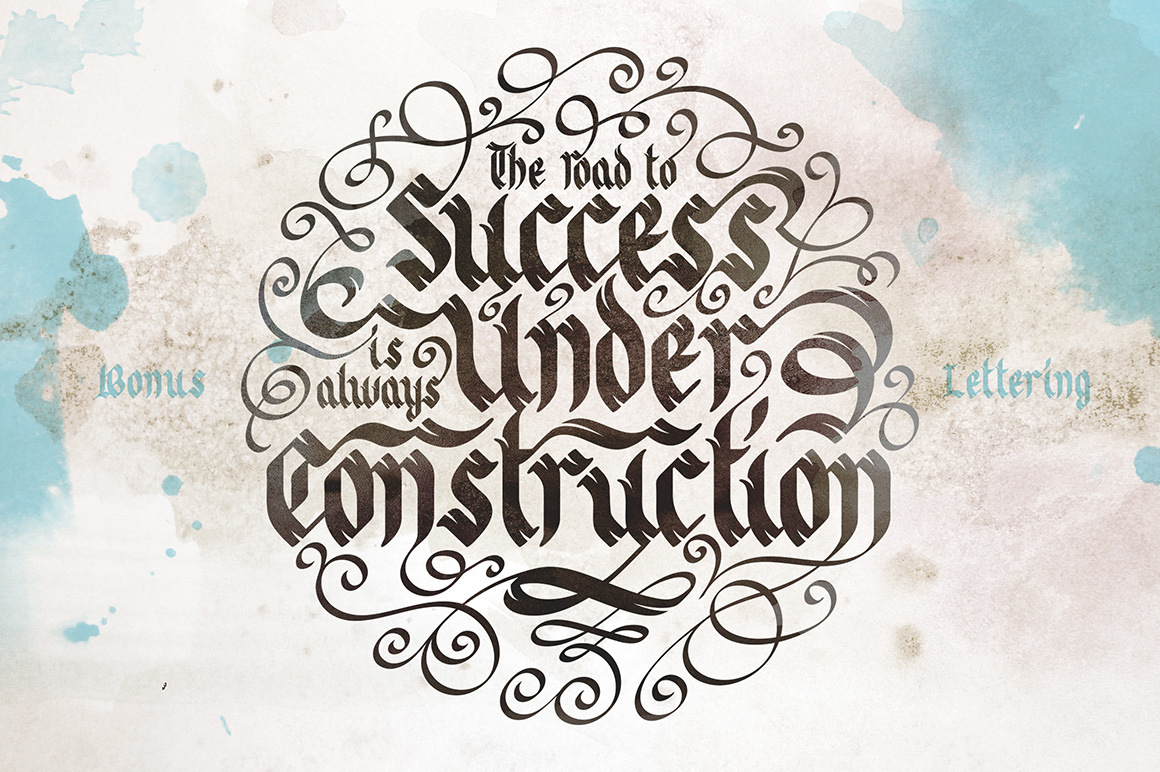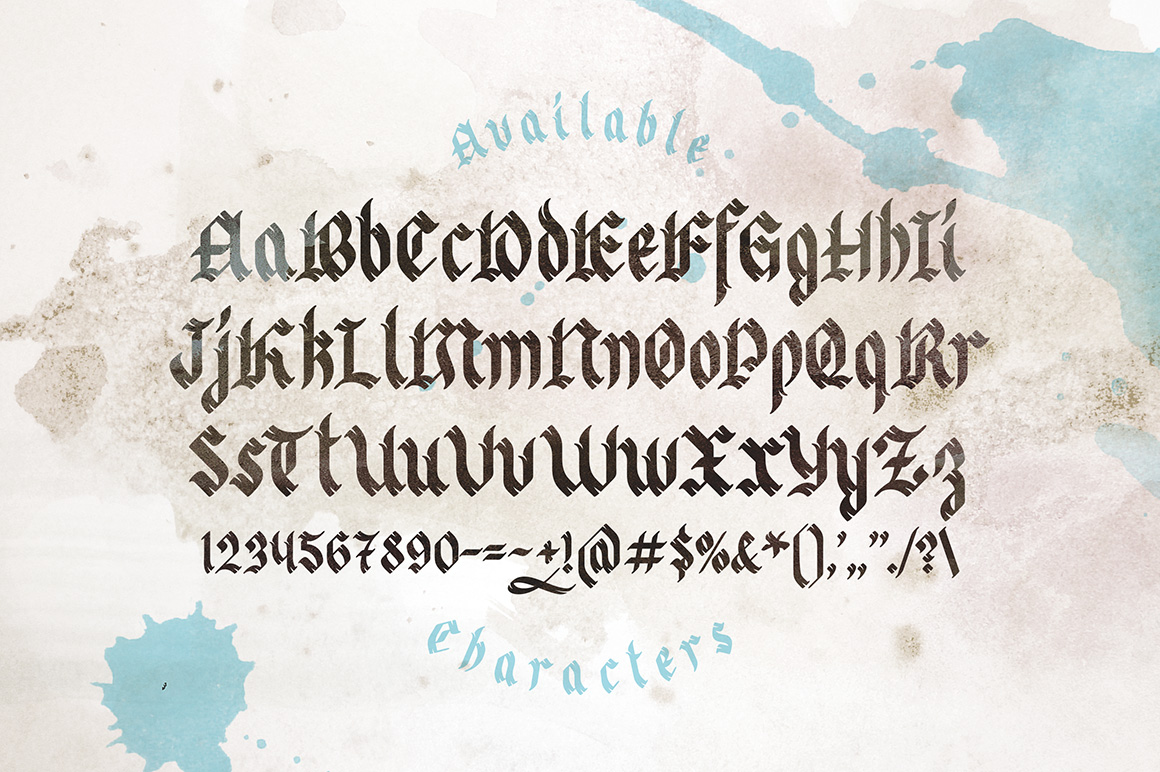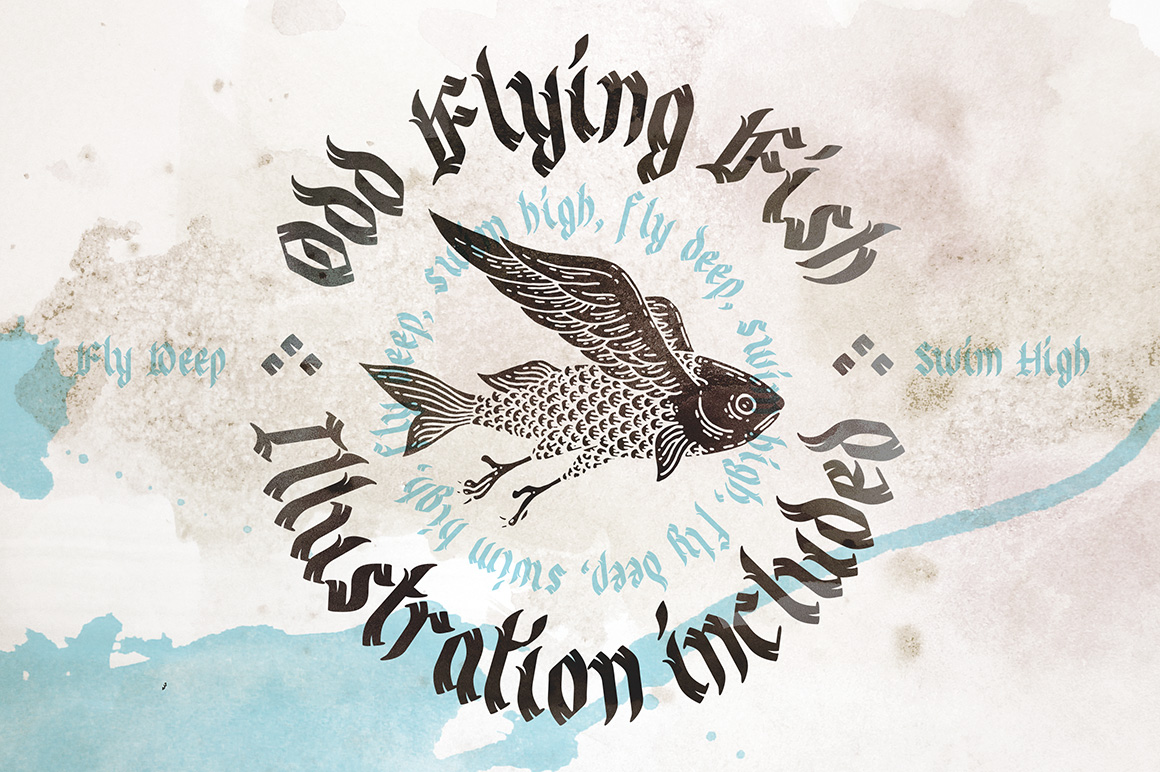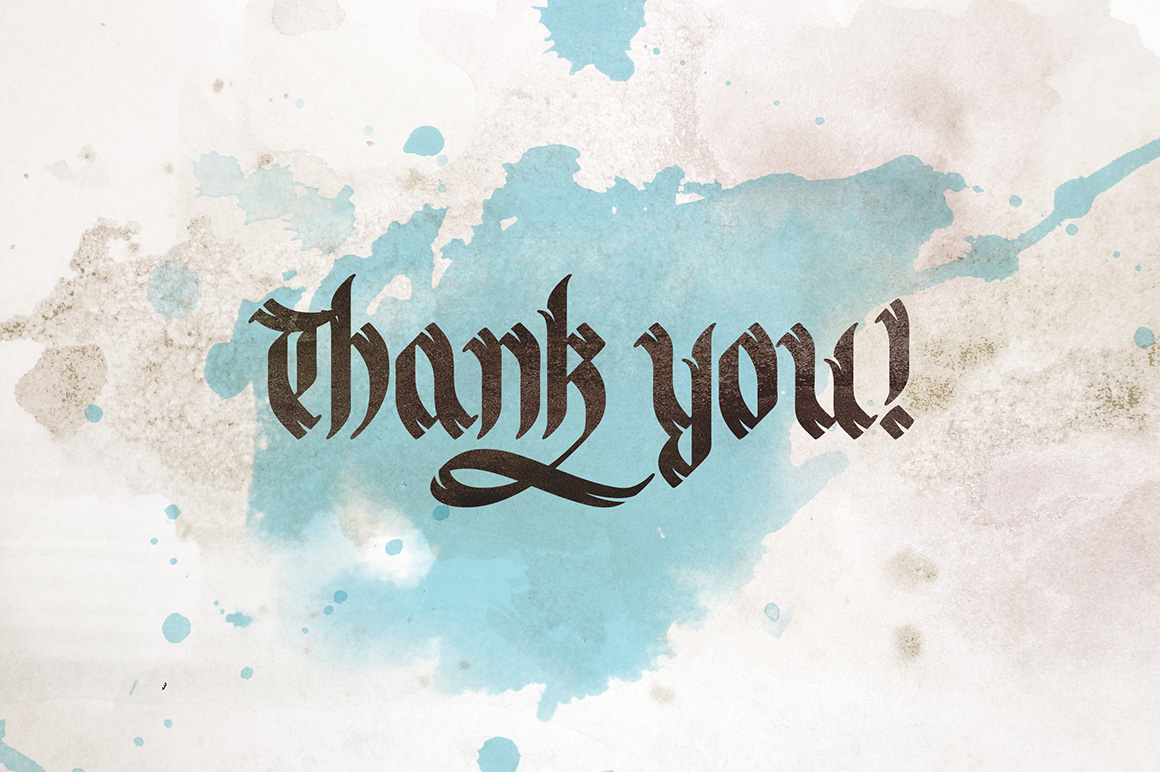
Introduction to Odd Times Font
As a designer, there’s nothing quite like the thrill of stumbling upon a unique typeface that sparks a creative project into life. It was one such moment when I first laid eyes on the Odd Times Font – a medieval blackletter typeface that transported me to a world of intricate calligraphy and Gothic charm.
With its high-quality design and transparent background, Odd Times Font has quickly become a valuable resource for designers seeking to add an air of sophistication to their work. Whether you’re working on a historical-themed project or simply want to inject some personality into your design, this font is sure to deliver.
Key Features of Odd Times Font
- High-quality, unique typography for creative projects
- Perfect design resource for logos, graphics, and other visual elements
- Unique, bold style that stands out in creative projects
Honest Review: Odd Times Font
I recently came across the Odd Times Font, and I have to say, it’s been a game-changer for my creative projects. The high quality of this font is truly impressive, making it a fantastic design resource for any project.
One of the standout features of the Odd Times Font is its transparent background, which makes it incredibly versatile and easy to use. I’ve been able to use it for a variety of projects, from branding to editorial design, and it’s always looked amazing.
As with any font, there are some limitations to be aware of. ⚠️ Limited character set, ⚠️ Not ideal for body text (due to its decorative nature)
Overall, I’m thoroughly impressed with the Odd Times Font. It’s a fantastic addition to any designer’s toolkit, and I highly recommend it for anyone looking for a high-quality, creative font for their next project.
Odd Times Font is a versatile design resource that can be used in a variety of creative projects, including logos, graphics, presentations, and documents. Its unique and creative style makes it an ideal choice for designers looking for a high-quality, free download.